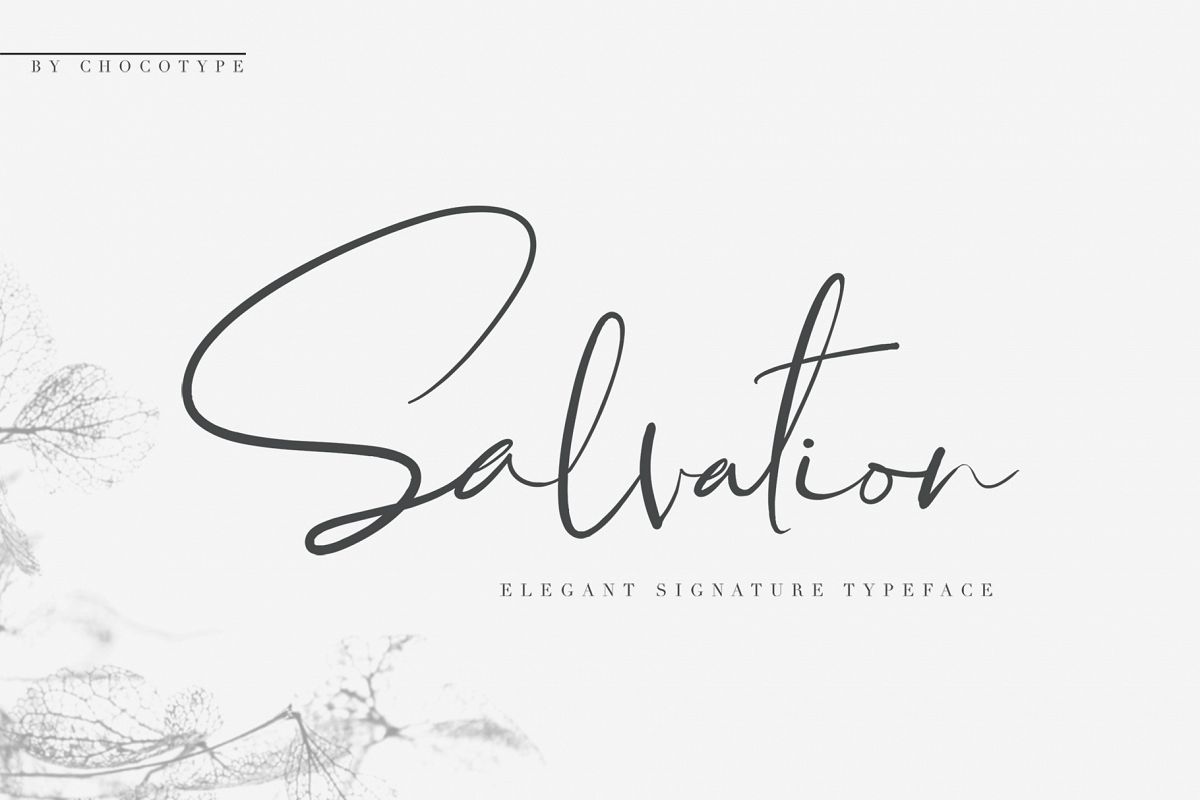
Salvation
Salvation font come with unique character set. It is perfect for branding, wedding invites, advertisement, and cards.Salvation includes full set of gorgeous uppercase and lowercase letters, alternate character set in uppercase and lowercase, numerals, a large range of punctuation and ligatures, That makes the font look more mesmerizing!
Alternates Character set already include in the font file :)